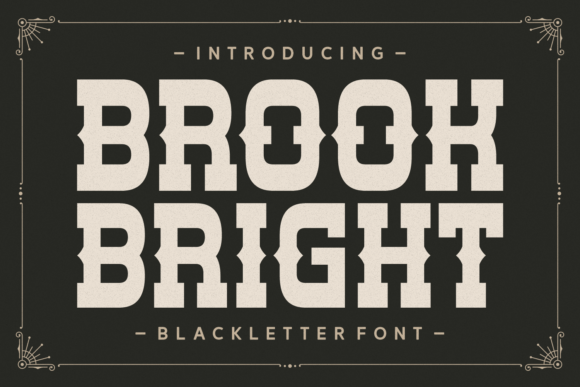
The Power of Typography: Unleashing the Potential of Brook Bright Font
Have you ever stared at a blank page, waiting for that spark of creativity to strike? Maybe it was a late-night brainstorming session, or a moment of frustration, but suddenly, the perfect font pops into your head, and everything falls into place. For designers, that moment is what it’s all about – the thrill of bringing an idea to life with the perfect combination of words and style.
That’s where the Brook Bright Font comes in – a bold and eye-catching blackletter font that’s sure to make your designs stand out. With its thick letters and serifs, this powerful font is the perfect addition to any project, whether it’s a logo, a poster, or a website. And the best part? With the Brook Bright Font, you can confidently add that extra oomph to your designs, knowing that the results will be nothing short of amazing.
Brook Bright Font Key Features
- Character Set: The font contains a comprehensive character set, including Latin, Cyrillic, and Greek alphabets, as well as a range of punctuation and symbol characters.
- Unique Characteristics: Brook Bright Font features a distinctive, modern design with a mix of rounded and geometric shapes, giving it a friendly and approachable feel.
- Font Weight and Style: The font is available in 4 weights: Light, Regular, Bold, and Black, as well as 2 styles: Normal and Italic.
Brook Bright Font Review
Overall, I’m impressed with the Brook Bright font, but like any font, it has its strengths and weaknesses. ✨ Here are some things that work well:
- ✨ Friendly and approachable feel: The Brook Bright font is perfect for creating a welcoming atmosphere in your designs.
- ✨ Legibility: The font is highly legible, making it easy to read even at smaller sizes.
- ✨ Versatility: Brook Bright works well in a variety of contexts, from headings to body text.
- ⚠️ Limited character set: The font may not include some special characters or symbols, which could be a problem in certain situations.
- ⚠️ May not work well in small sizes: While the font is legible, it may become difficult to read at extremely small sizes.
Overall, I think the Brook Bright font is a solid choice for designers looking for a friendly, approachable font. While it may not be perfect, it’s a great option for a wide range of projects.
Tips for Getting the Most Out of Brook Bright Font
To get the most out of Brook Bright Font, use it for:
- Casual blog posts or social media graphics.
- Watercolor-inspired designs or illustrations.
- Uplifting or motivational quotes.
Remember to adjust the font size and style to create a visually appealing design.
Brook Bright Font is commonly used for:
- Wedding invitations or stationery.
- Birth announcements or baby shower invitations.
- Summer-themed designs or beach-inspired graphics.
Alternatives to Brook Bright Font
Great Vibes Font is a modern, elegant script font perfect for creating a friendly and approachable atmosphere. It is ideal for use in branding, signage, and advertising materials. Great Vibes Font has a similar playful feel to Brook Bright Font, but with a more refined and sophisticated appearance.
Comparison: While Brook Bright Font has a more energetic and youthful feel, Great Vibes Font is more subdued and versatile.
Lato Font is a clean and modern sans-serif font suitable for a wide range of applications, from corporate communications to digital products. It is particularly effective in conveying a sense of professionalism and sophistication. Lato Font shares some of the same sleek qualities as Brook Bright Font, but with a more neutral and understated tone.